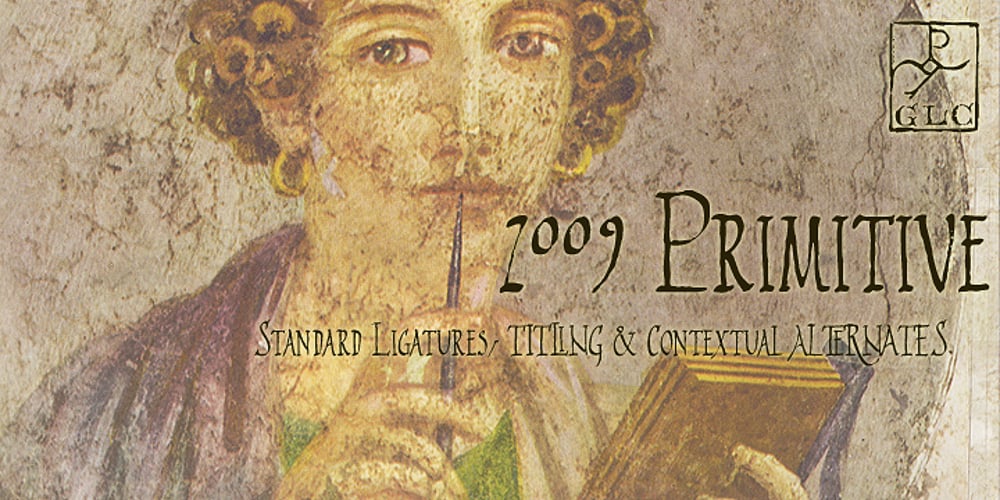
2009 Primitive
2009 Primitive font
2009 Primitive Font Family was designed by published by GLC. 2009 Primitive contains 1 styles and family package options. This is not an historically accurate font but rather one intended capture the spirit of ancient Roman manual type. It was inspired by various patterns used in documents and books created by Latin scribes between the second and fourth centuries. They used either calamus and ink on papyrus, or a pointed metal stick on wax tablets. We have created the font for contemporary use; distinguishing between U and V, I and J, which had no meaning for ancient Latin scribes, and adding thorn, Oslash, Lslash, W, Y and common accented characters that did not exist at the time. A lot of titlings and contextual alternates complete the set. Available only in TTF and OTF format.